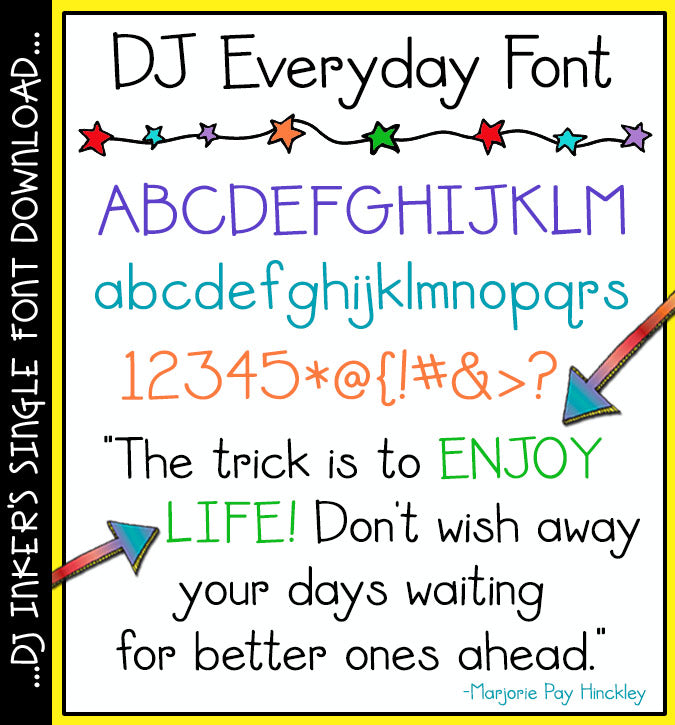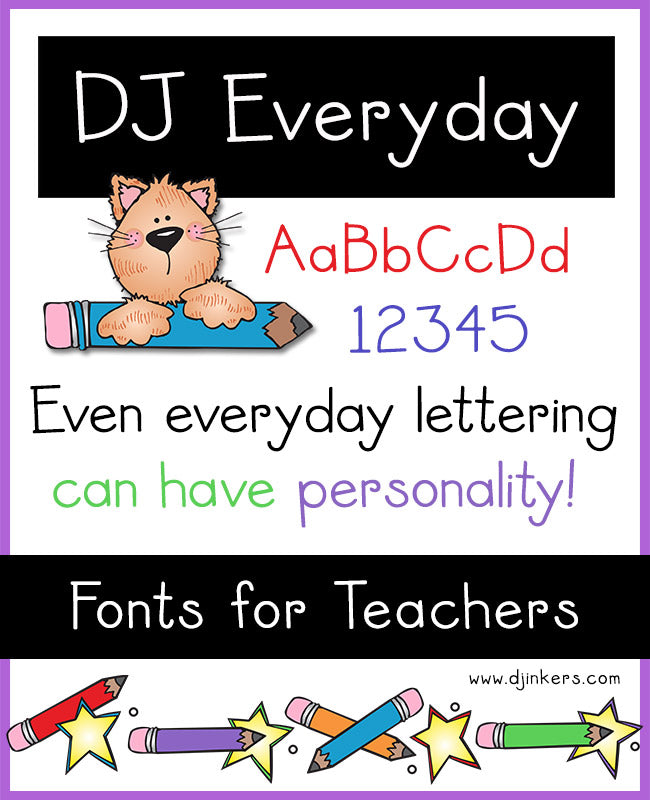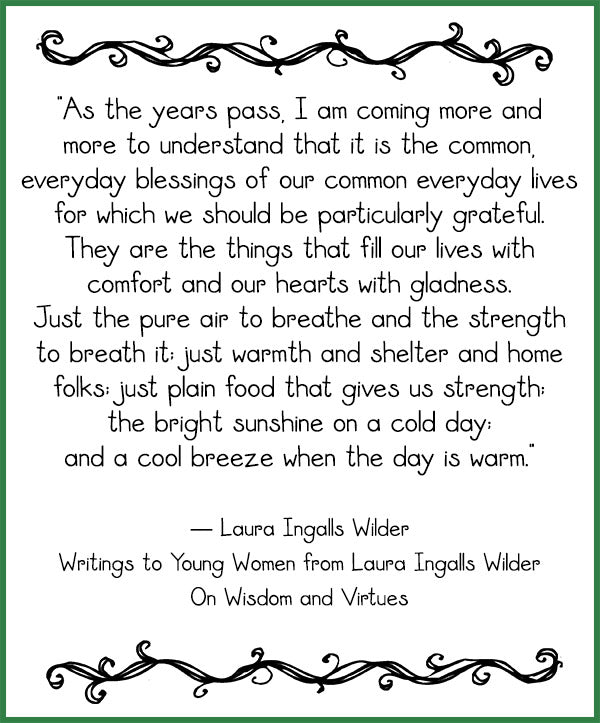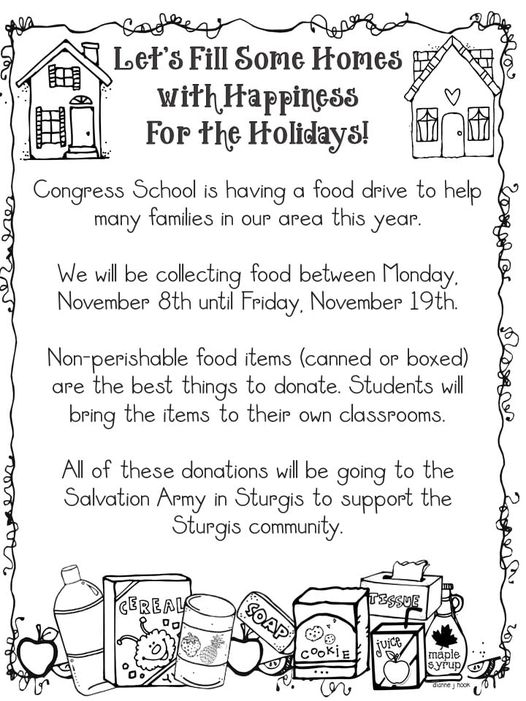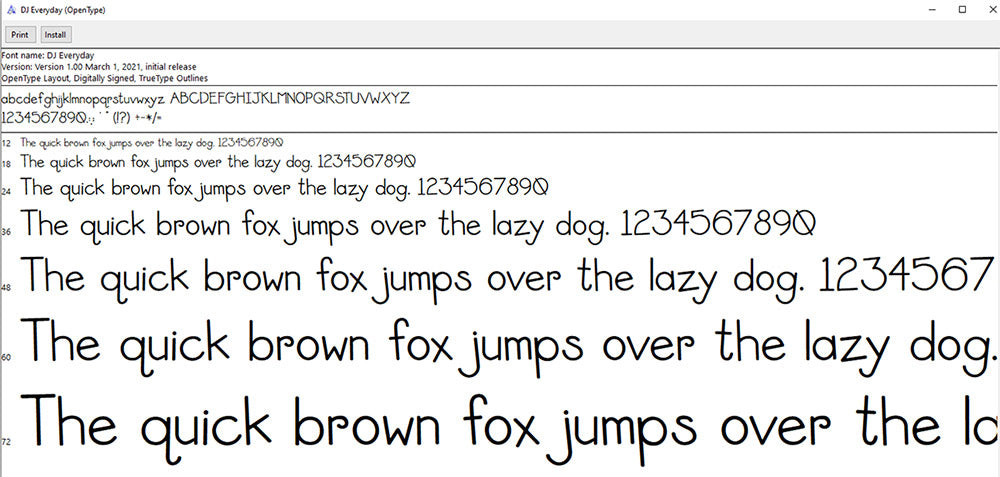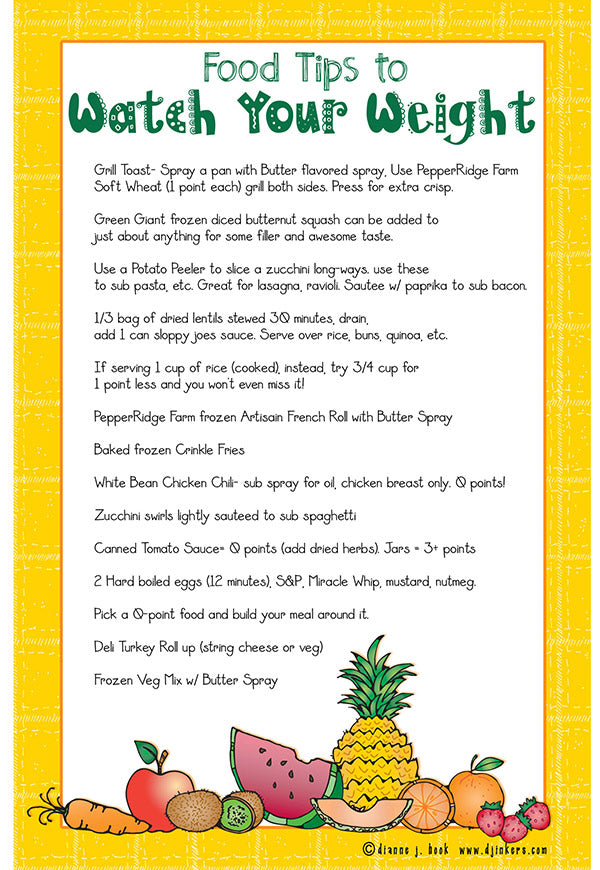
DJ Everyday Font Download
Looking for the perfect everyday font?
DJ Inkers has just what you need to type-up the basics with a smile.
Great for text of any kind: letters, lists, instructions and more...
at school, at home or at play!